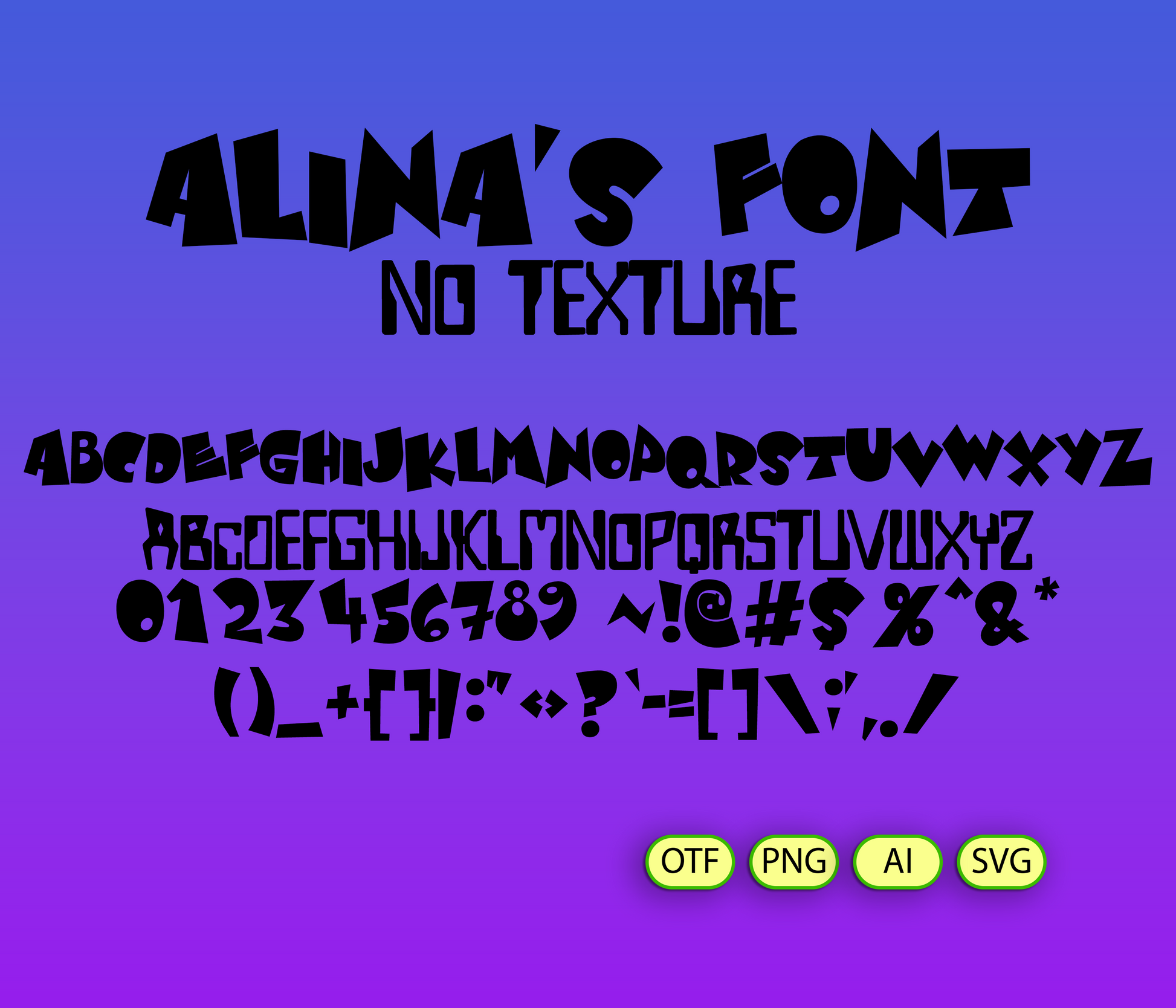
Boy Genius Lab Font
Step into the quirky world of scientific discovery with our specially designed font that captures the essence of a child prodigy's experimental adventures. This font embodies the spirit of a brilliant young scientist, known for his secret laboratory and wild inventions. Perfect for creators, event organizers, and designers who want to bring the dynamic energy of childhood genius and mad science to their projects.
Our Boy Genius font features playful, scientific lines and laboratory-inspired characters reflecting the experimental nature of childhood innovation. Ideal for:
1. Event Promotions: Create engaging invites, posters, and banners for science fairs, kids' parties, and special screenings that capture the spirit of discovery.
2. Merchandise Design: Design T-shirts, posters, and accessories that embody the fun and excitement of scientific exploration.
3. Digital Media: Transform websites, blogs, and social media with dynamic headers and graphics that evoke laboratory vibes.
4. Fan Art Content: Add authentic flair to artistic creations, digital illustrations, and themed projects celebrating young genius.
5. Personal Projects: Bring scientific wonder to scrapbooking, DIY crafts, and home decor inspired by laboratory adventures.
Our Boy Genius Lab font includes both textured and non-textured variants, ensuring compatibility with all software, including Canva. This feature allows easy incorporation into designs for users of all skill levels.
Our font pays tribute to childhood innovation and laboratory experiments, empowering your designs with its clever and whimsical spirit. Whether crafting promotional materials, designing merchandise, or adding a dynamic touch to personal projects, this font communicates the exciting essence of scientific discovery.